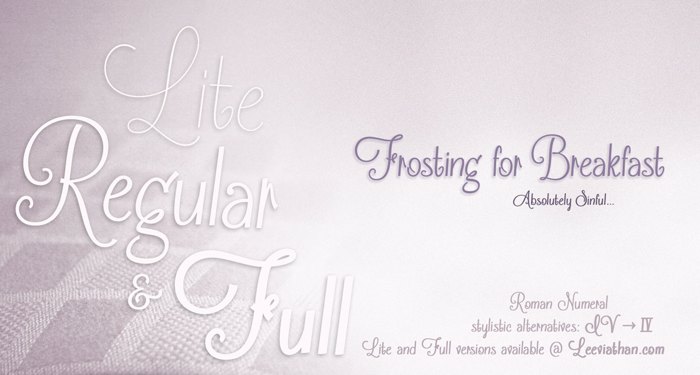
Frosting for Breakfast Font
More info from Leeviathan
Cool thing: This font utilizes OpenType features. Letters I, V, X, L, C, D, and M have stylistic alternatives for Roman numerals.